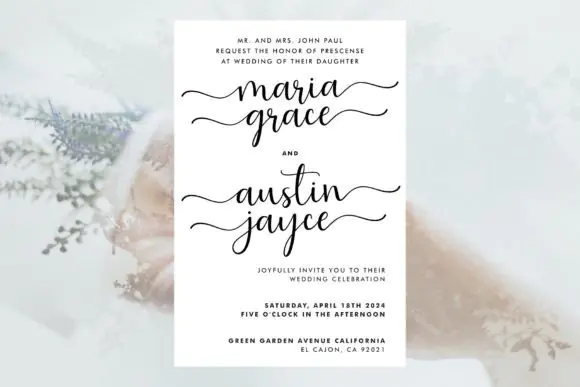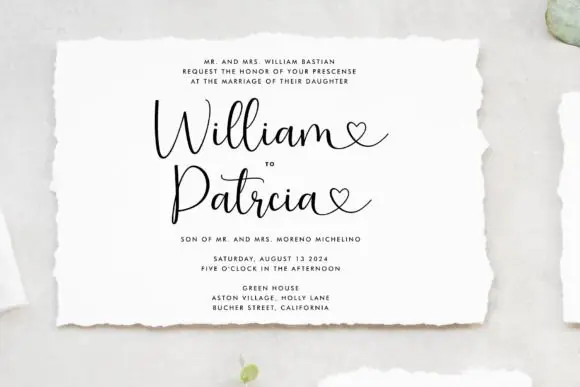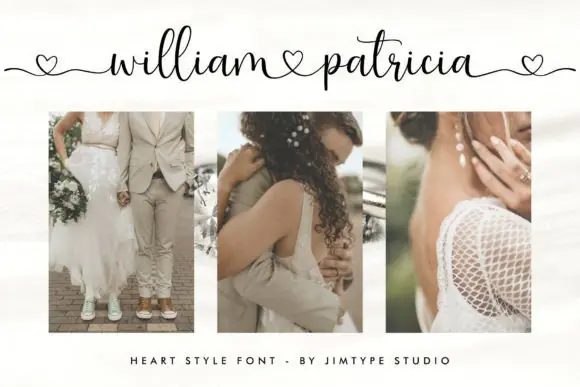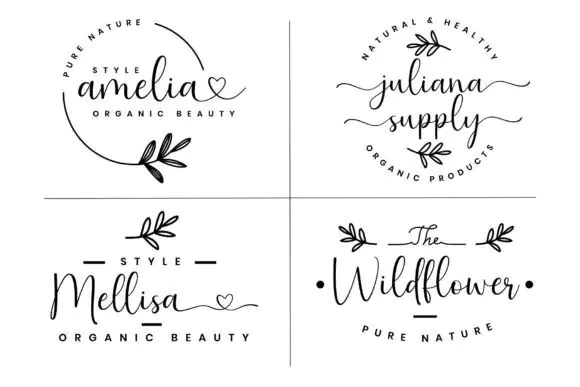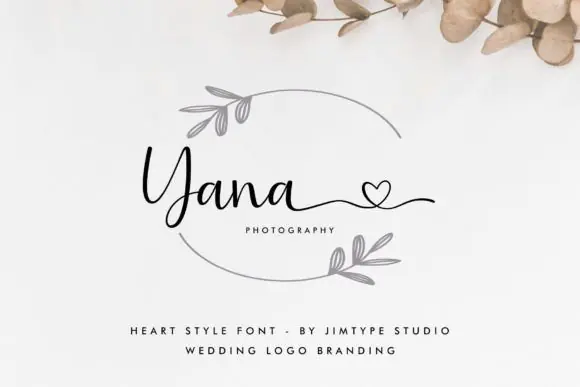
Create romantic, elegant, and emotionally beautiful designs with Heart Style Font, a charming script typeface designed to bring love, refinement, and graceful personality into your creative projects. With its soft script flow and romantic visual style, this font is perfect for designs that need a warm, heartfelt, and sophisticated look.
Heart Style Font is especially suitable for wedding invitations, love letters, greeting cards, heartfelt messages, romantic quotes, bridal stationery, engagement designs, anniversary cards, boutique logos, branding projects, product packaging, labels, stickers, and social media graphics. Its elegant script appearance helps your text feel personal, stylish, and emotionally expressive.
Whether you are crafting a wedding stationery set, designing a romantic brand identity, creating a Valentine’s Day graphic, or making a meaningful quote design, Heart Style Font adds a captivating touch of romance and refinement to your artwork.